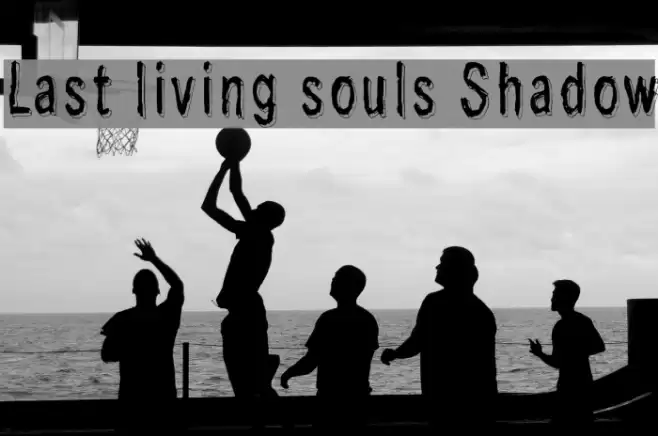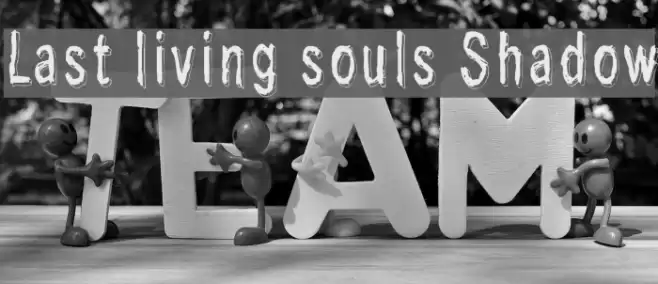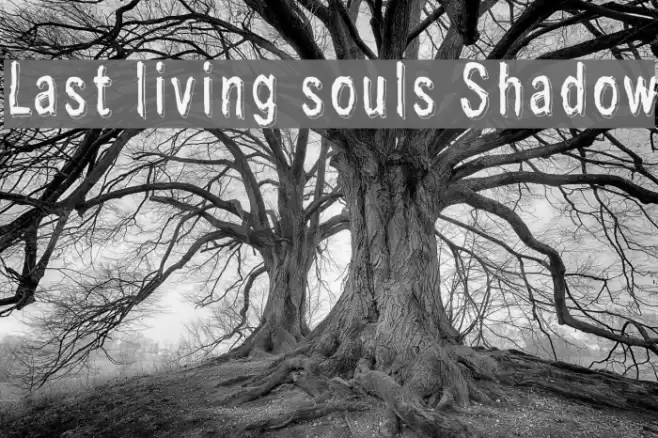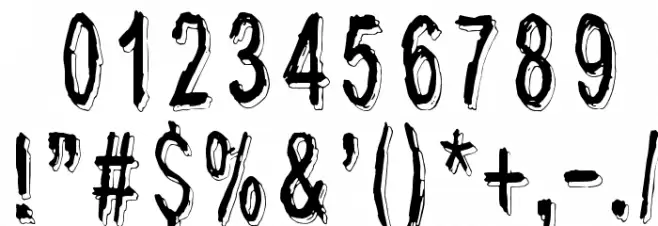
Last living souls Shadow Font
Last living souls Shadow Description
This font features a bold, hand-drawn style with a shadow effect that gives it a three-dimensional appearance. The characters have a rough, sketch-like quality, adding a sense of dynamism and energy. The uppercase and lowercase letters maintain a consistent style, with slightly irregular edges that enhance its artistic feel. Numbers and special characters are included, following the same design principles. The font's unique shadowing and textured look make it stand out, ideal for creative and eye-catching designs.
A bold, hand-drawn font with a shadow effect and sketch-like texture from Uncategorized fonts.